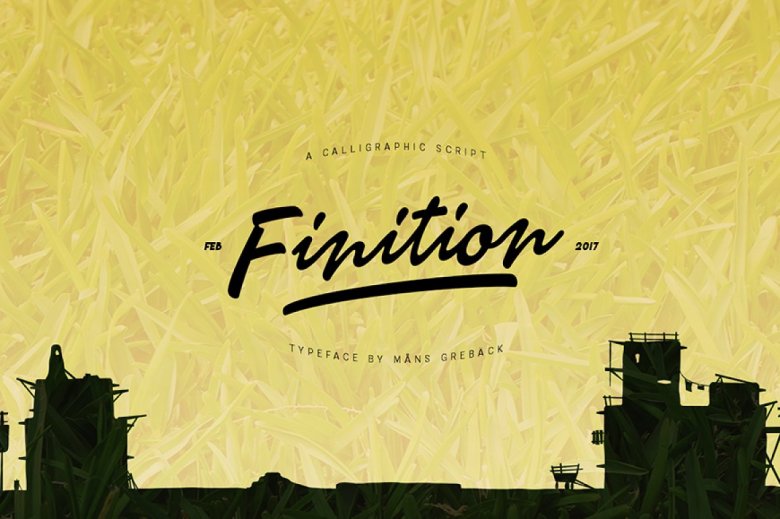
Finition Font
Finition is a calligraphic brush script. Created by Måns Grebäck, this typeface is perfect to create a youthful logo. With its hundreds of glyphs it supports a wide range of languages.
Finition Calligraphy Font